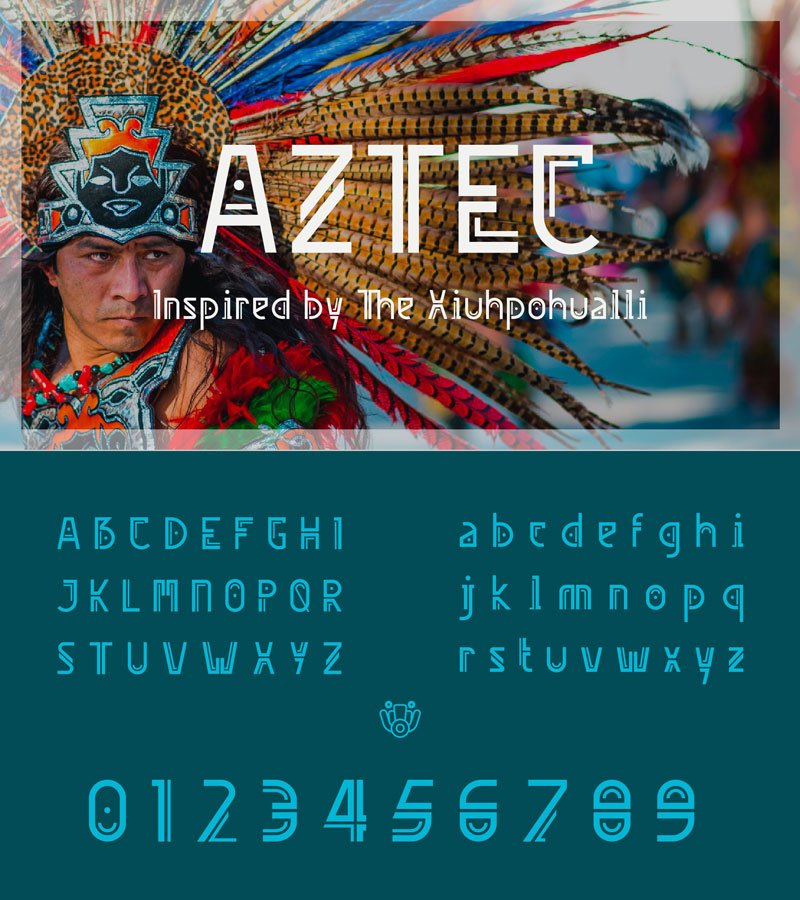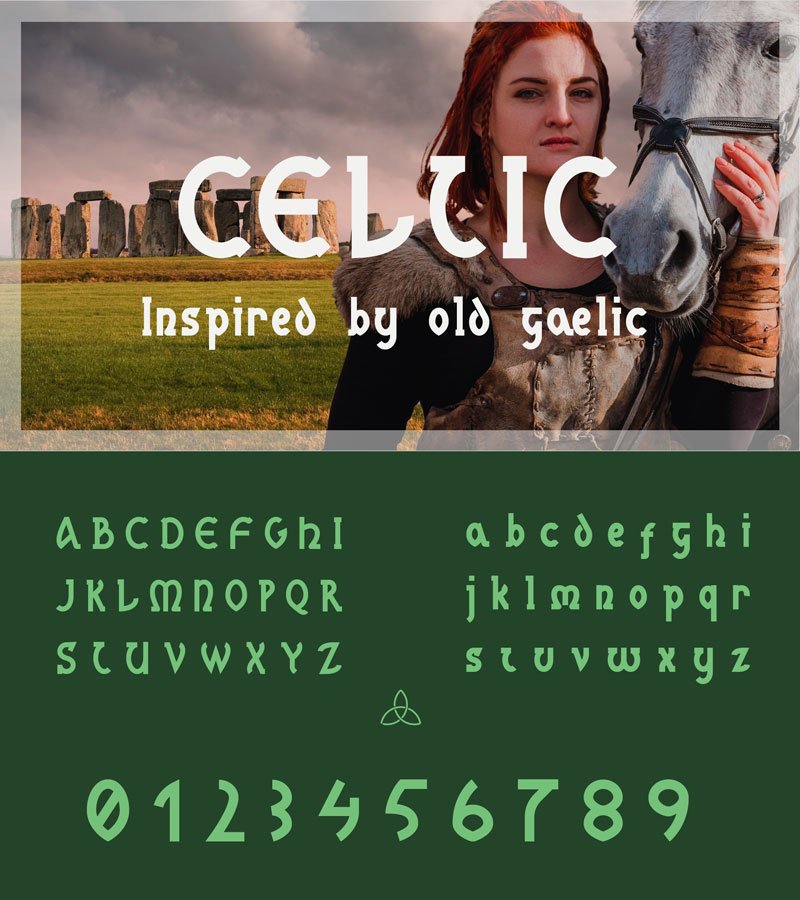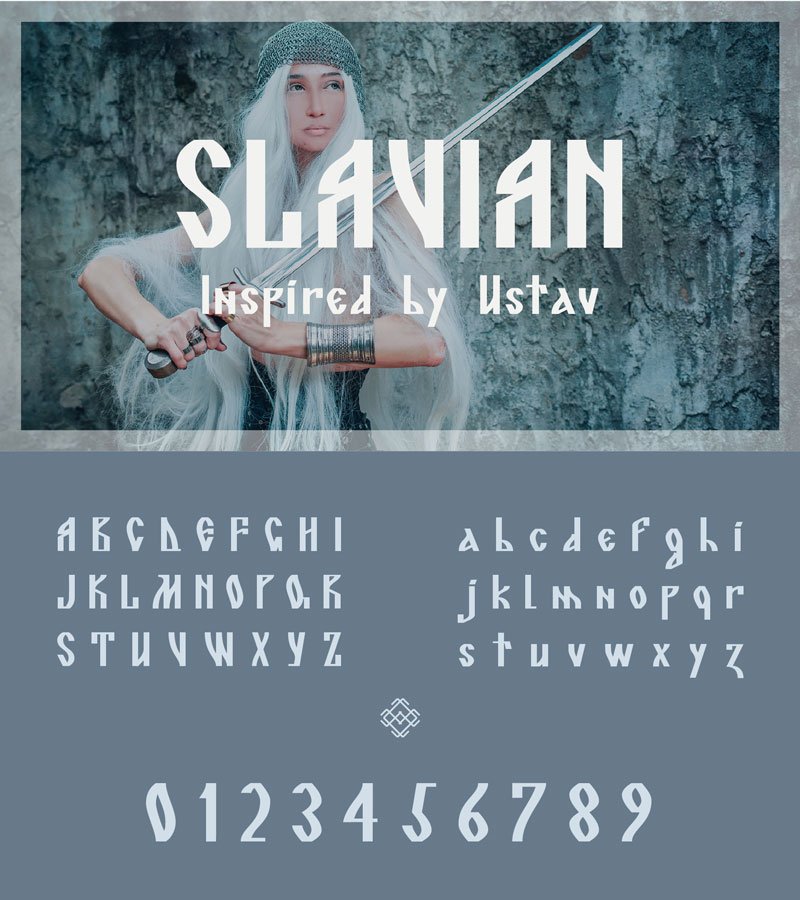
Introducing Fontikon: A Unique Collection of “Ethno-Esoteric-Mystic-Magical” Fonts for Creatives
Looking for some cool, fresh fonts to add spice to a project? Check out Fontikon. Described as a set of “Ethno-Esoteric-Mystic-Magical” fonts for creatives, it’s an upcoming collection of 8 type families and symbols with deep historic and global roots. Whatever vibe you’re looking for, from samurai to Cthulhu, Game of Thrones to Aztec empire, there’s something in Fontikon for you.
Fontikon is the brainchild of Michela Graziani, and a follow-up to her previous Kickstarter project, the Symbolikon Digital Encyclopedia. To support the development of these fonts, Graziani has created a Kickstarter campaign. Here’s her statement on the campaign:
To create Fontikon library, I’ve read countless books on ancient cultures, mysticism and myth. I’m hoping that I can raise enough funds through Kickstarter to continue my research. There are so many cultures out there to learn about. I have designed the first 8 of these font families and I need your help to go further in the development of new worldwide fonts.
After the project completion, I plan to continue my research, adding new Font families and exploring other cultures, such as: Mayan, Hopi, Greek Mythology, Latvian, Egyptian and many more.